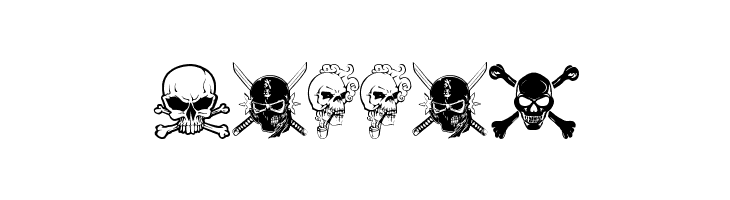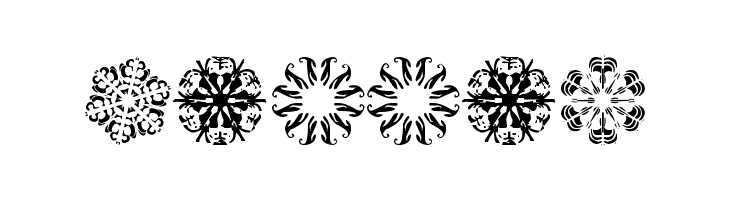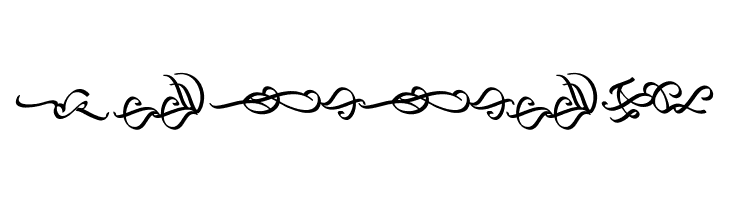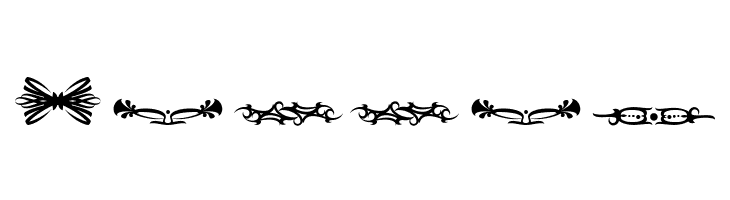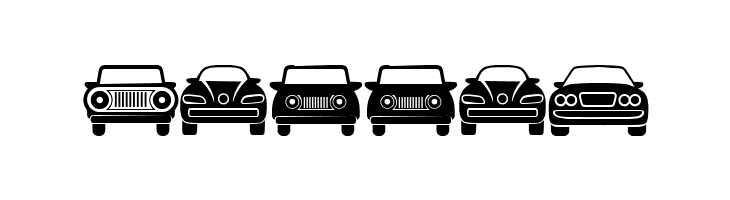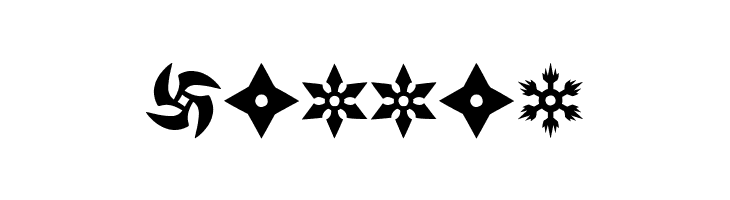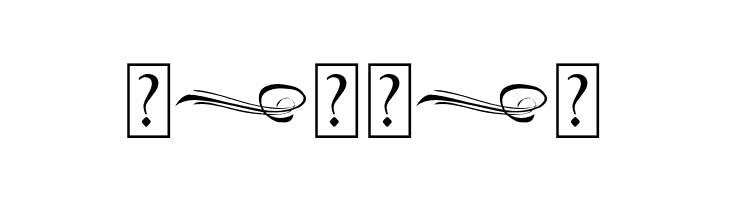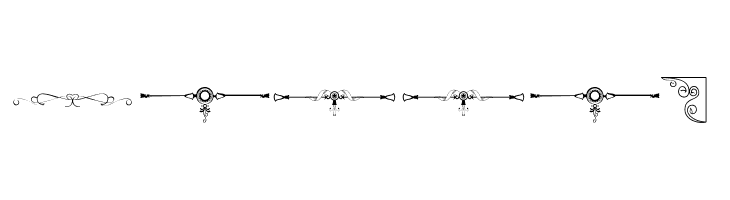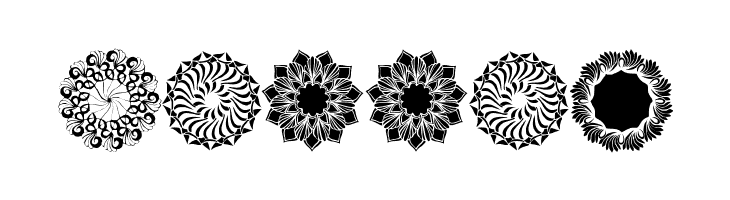
A display font made up of diverse skull and crossbones illustrations.
A decorative font made up of diverse snowflake symbols.
Highly decorative ornamental flourish font for embellishments.
Highly decorative ornamental glyphs for borders and embellishments.
A display font made of car front illustrations for each character.
A bold decorative font featuring shuriken silhouettes as glyphs.
Hand-drawn swash or flourish elements.
A decorative pattern of stylized question marks with ornamental elements.
Ornate decorative elements and flourishes in a hand-drawn style.
Ornamental dingbat font with mandala motifs and bold sans-serif Latin letters.